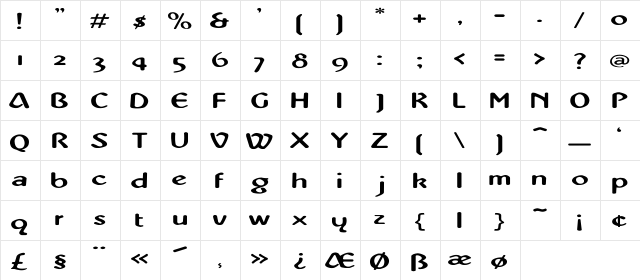
Abbey-Medium Extended Regular
Design Context for Abbey-Medium Extended Typeface
Abbey-Medium Extended is a composed and adaptable typeface that performs quietly and consistently across a wide range of design contexts.
Pro Tip: Use Abbey-Medium Extended in both headline and body roles to test its range before committing to a single application.